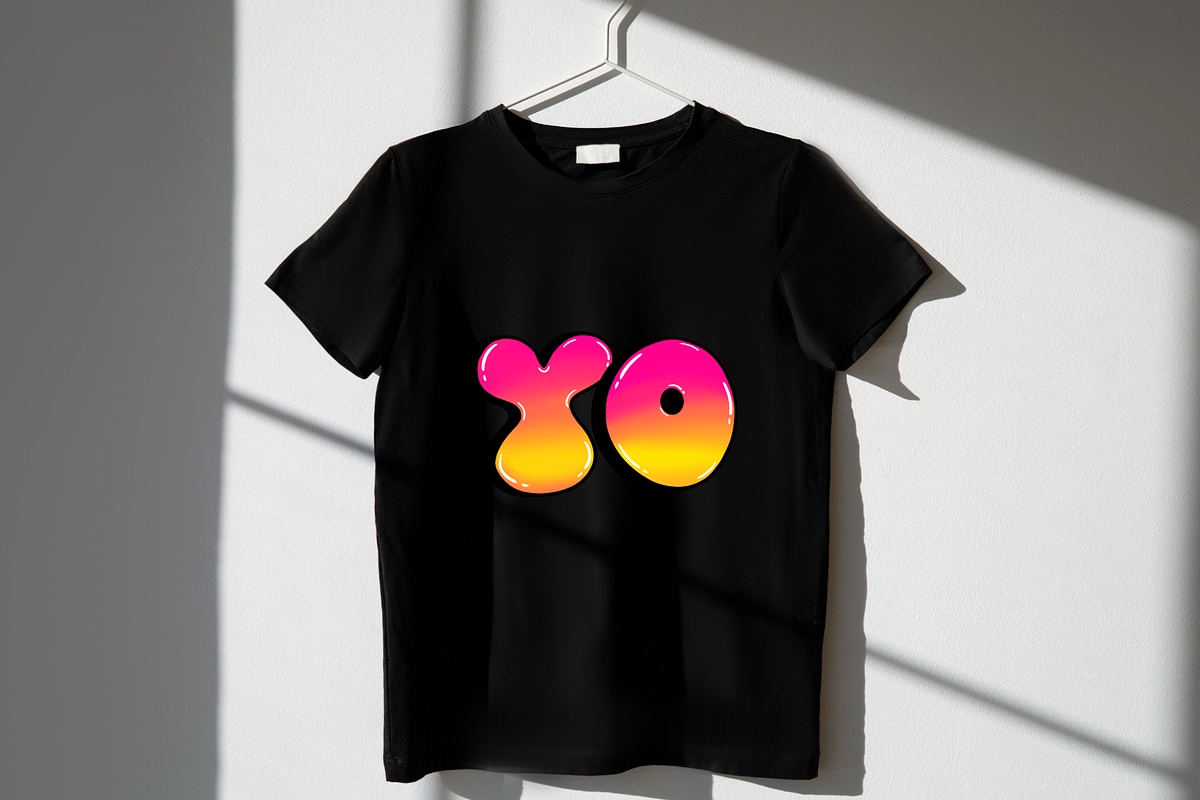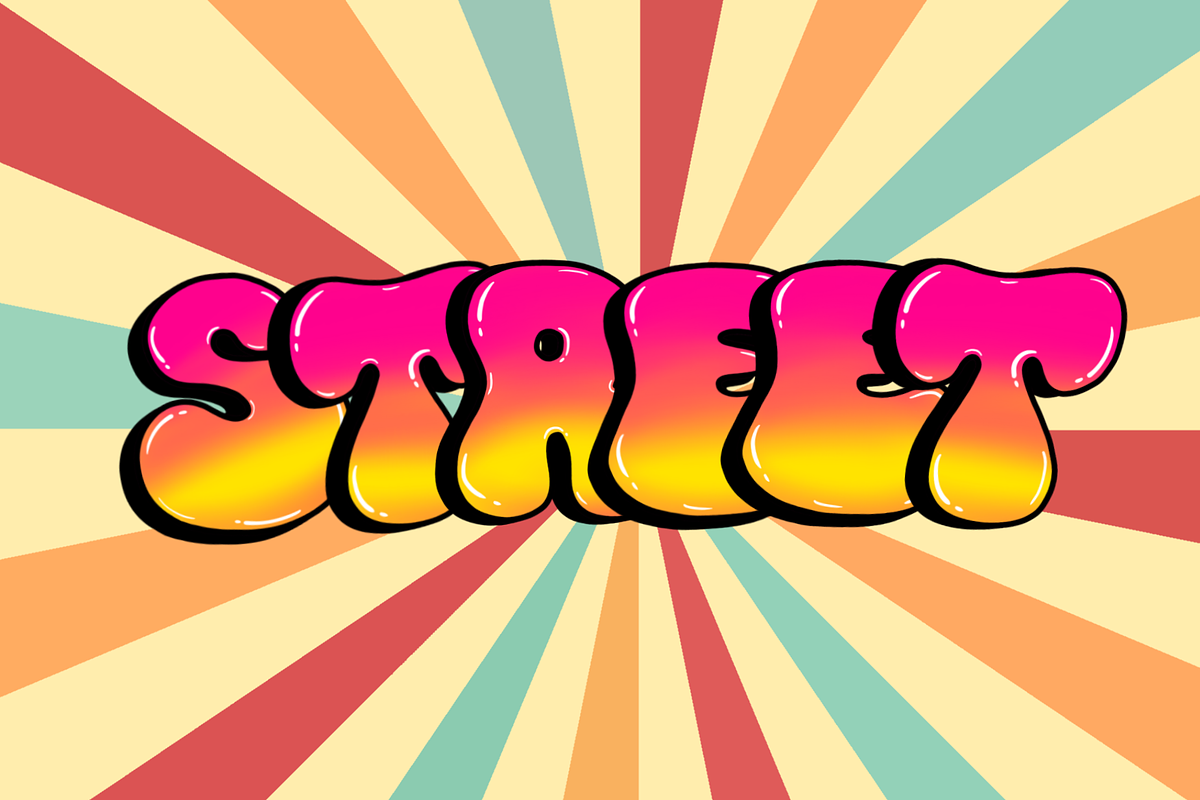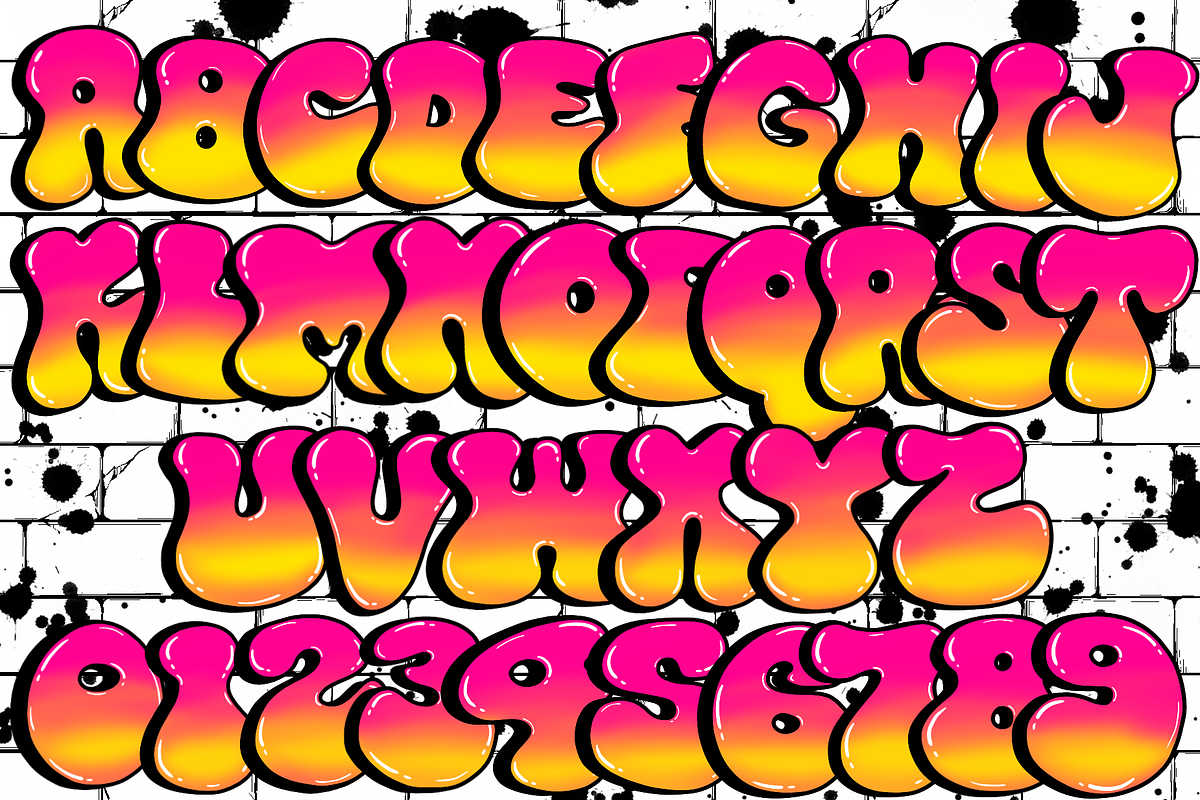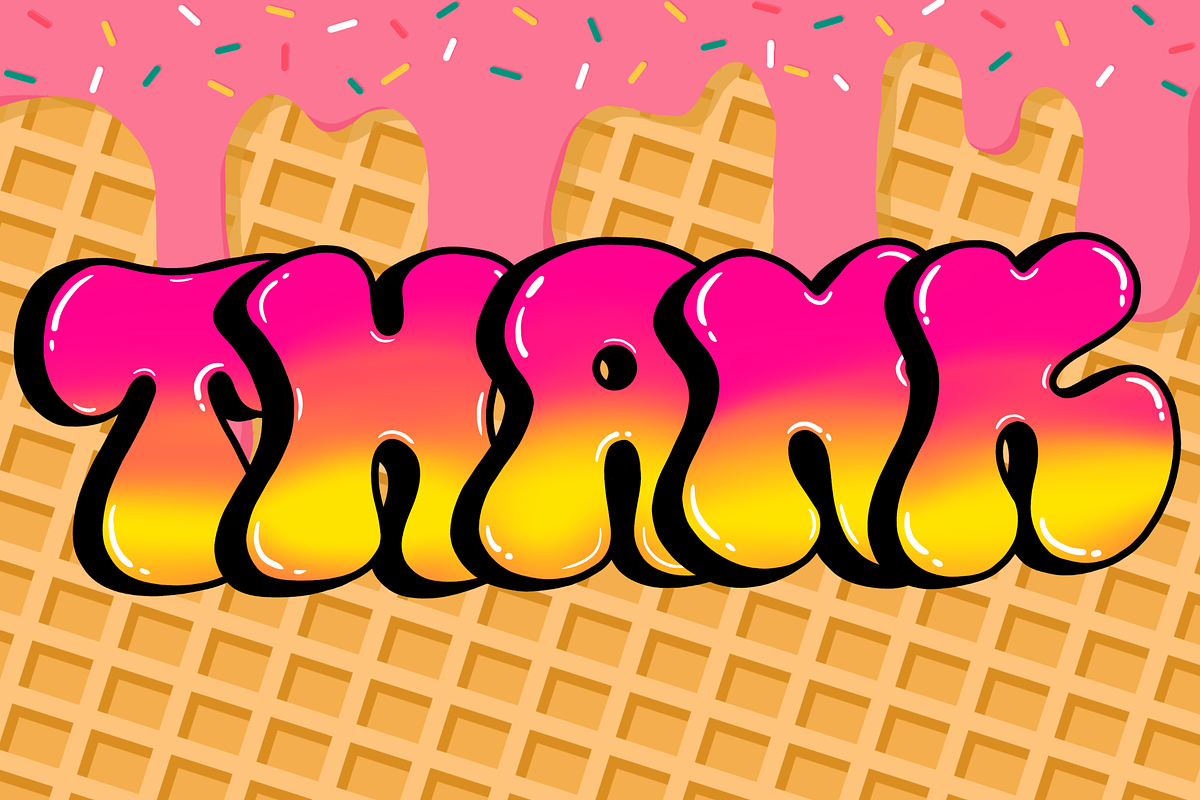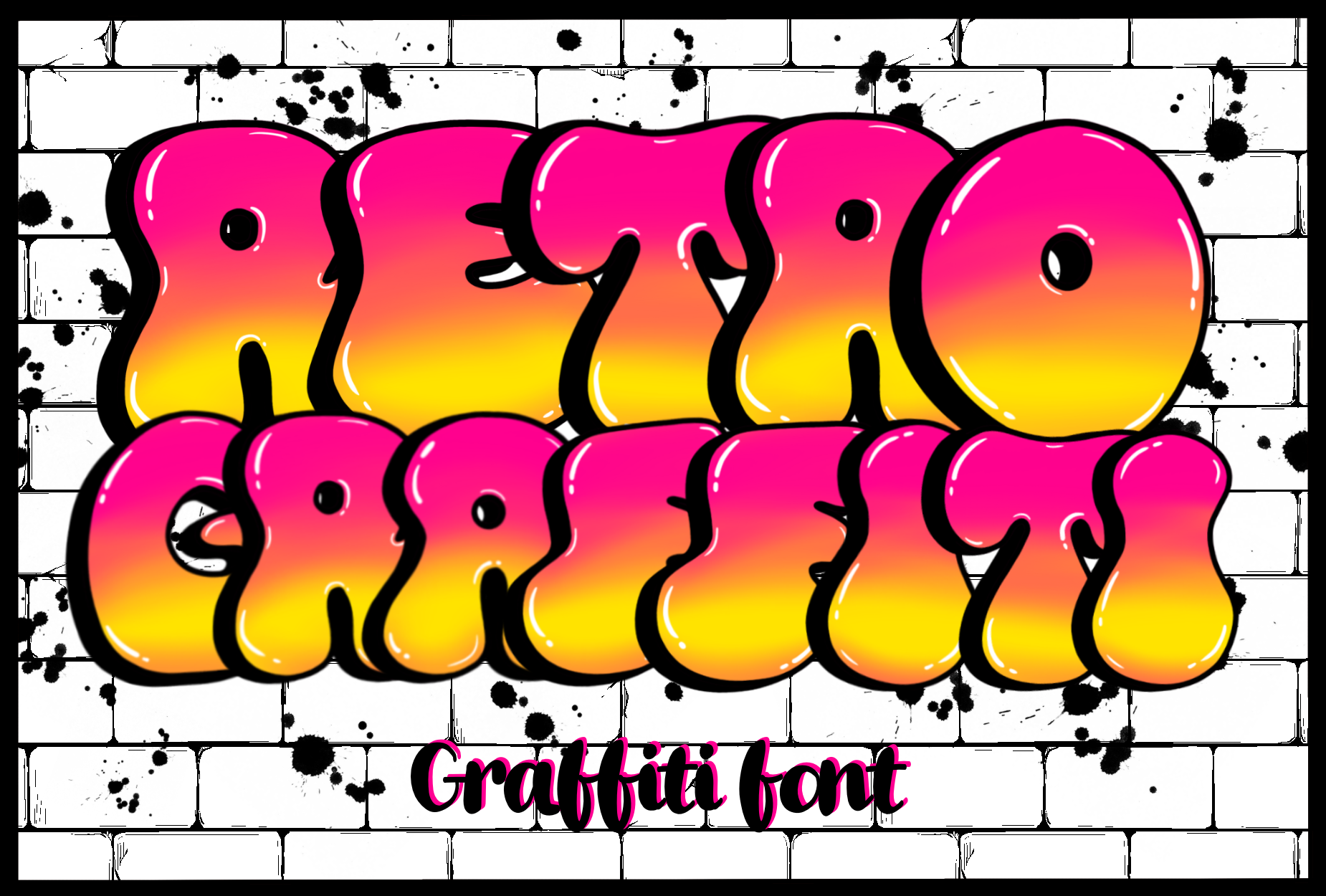
Retro Graffiti-PNG fonts
Retro Graffiti is a cool, classic graffiti font that brings back the vibe of street art from back in the day. With bold lines and funky style, it’s perfect for adding urban flair to your projects. Whether you’re creating posters, logos, or just want to make a statement, Retro Graffiti has got you covered with its edgy charm.